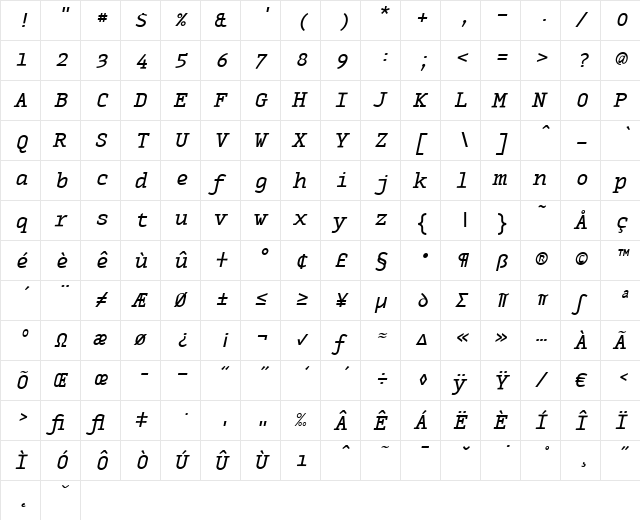
MonoxSerifRegularItalic Regular
| Foundry | Dino dos Santos _ DSType |
Design Context for MonoxSerifRegularItalic Typeface
MonoxSerifRegularItalic uses fixed-width spacing throughout, giving it the structured, systematic character associated with coding environments and technical documentation. Its italic angle brings a sense of urgency and motion to the letterforms.
Pro Tip: Pair MonoxSerifRegularItalic with a proportional sans for UI contexts where code-style labels and regular body copy need to coexist.